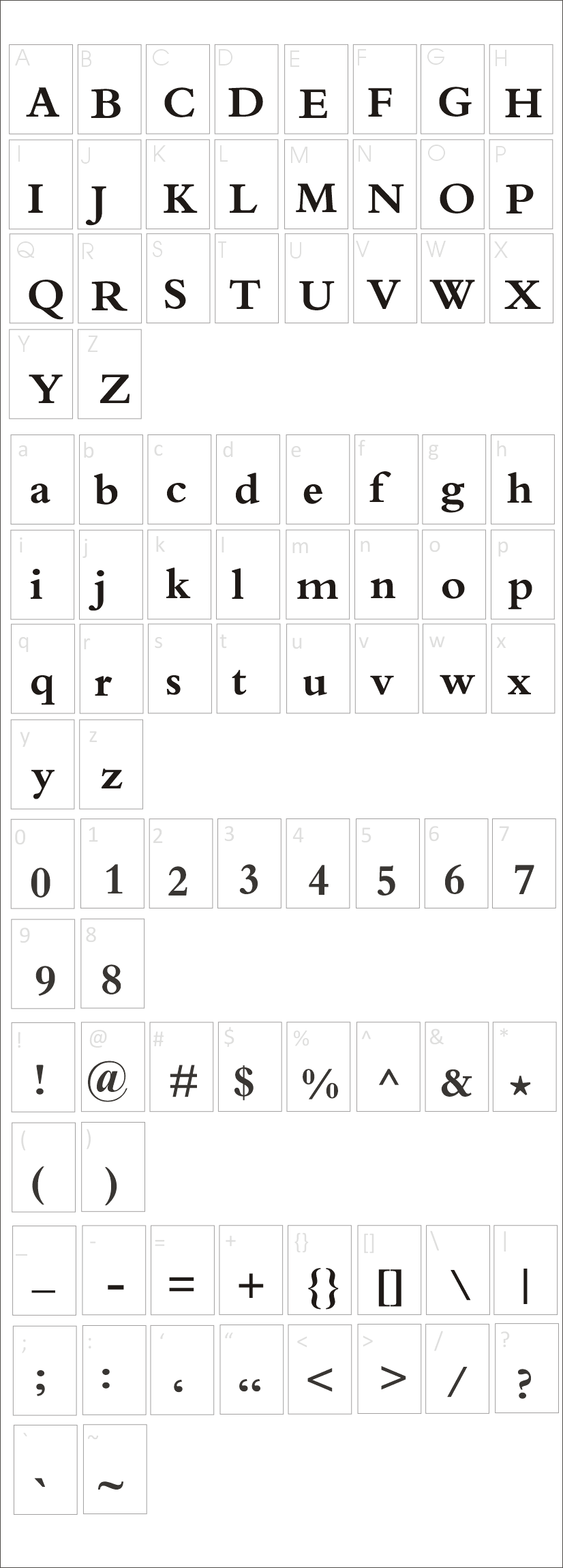
Bembo Font
Font Designer Francesco Griffo
Category Serif, Humanist
Bembo is a renowned font family known for its clean lines, harmonious proportions, and exceptional legibility. Inspired by the Venetian printing type of the early 15th century. Bembo is a classic typeface that is widely used in a variety of applications, from branding and signage to print and digital media.
Key Features of the Bembo Font Family:
• Classic and Elegant: Bembo’s timeless design and refined aesthetics make it a versatile choice for a wide range of projects.
• Exceptional Legibility: The font’s clear and balanced letterforms ensure easy reading on various screen sizes and devices.
• Harmonious Proportions: Bembo’s harmonious proportions and consistent design create a cohesive and professional appearance.
• Wide Character Support: The font family supports a broad range of languages and characters, making it a globally friendly choice.
• Multiple Weight Options: Bembo includes multiple weight options (e.g., Regular, Bold, Italic), allowing you to find the perfect style for your specific needs.
Ideal Uses for Bembo Font Family:
• Branding: Use Bembo for logos, business cards, and other branding materials to create a timeless and sophisticated identity.
• Signage: Bembo is often used for signage and wayfinding systems due to its excellent legibility and clear design.
• Print Design: Incorporate Bembo into brochures, flyers, and other print materials to add a touch of elegance and professionalism.
• Web Design: Use Bembo for headlines, body text, and other typographic elements to enhance your website’s visual appeal.
• Corporate Presentations: Bembo’s classic and elegant design can help make your presentations more impactful.